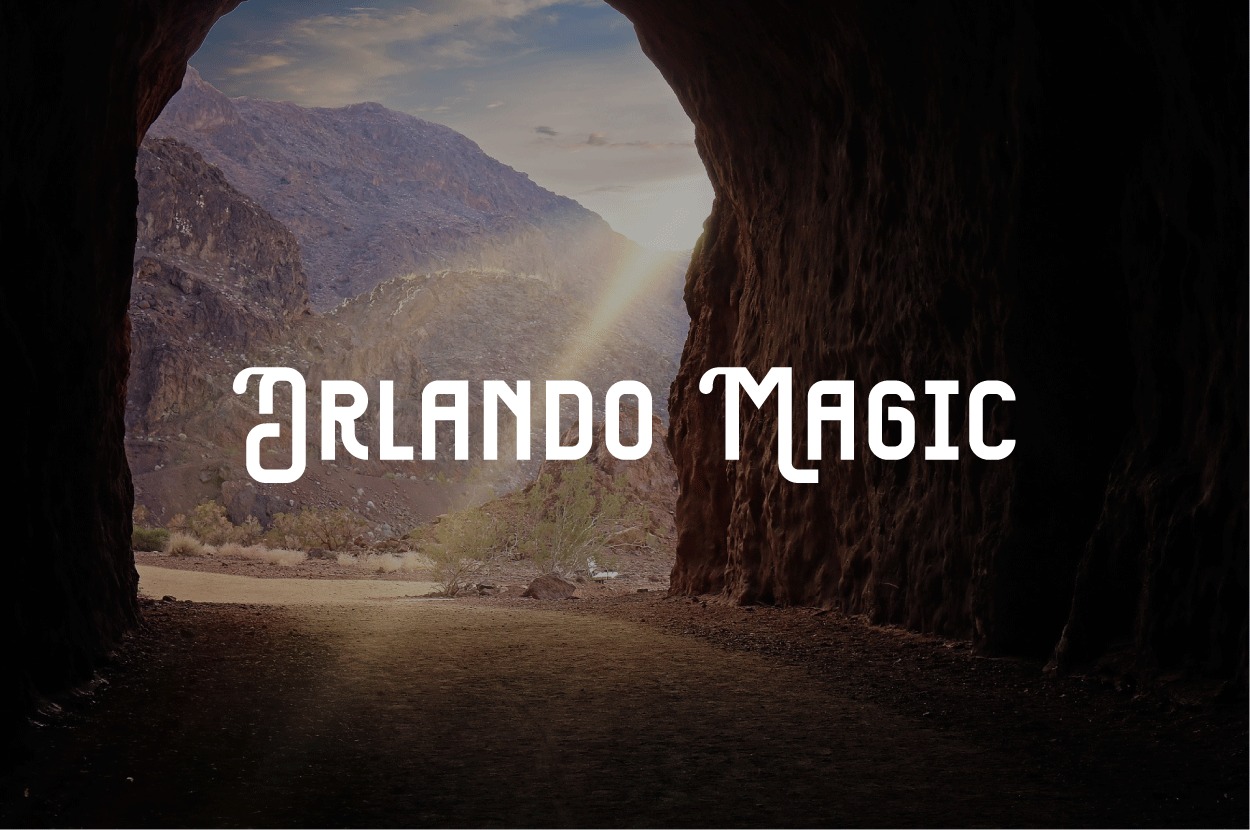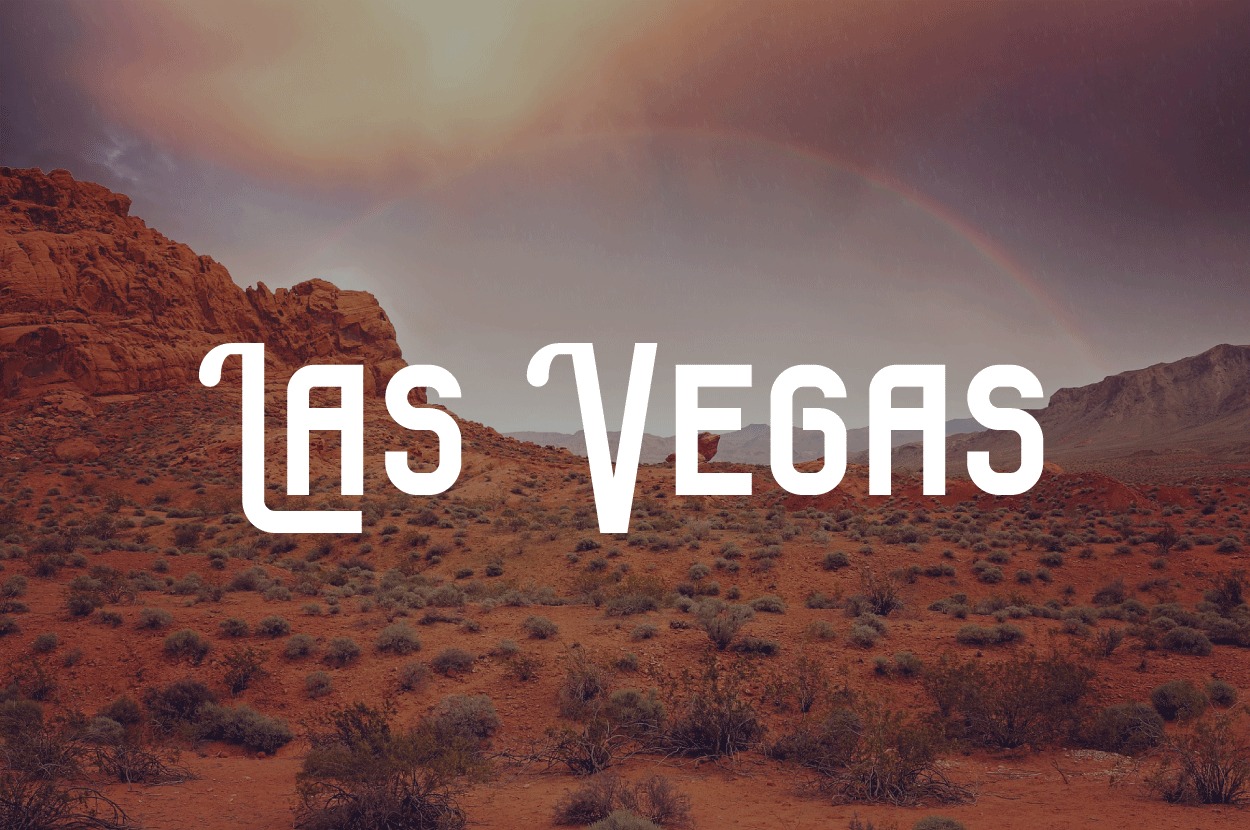
Las Vegas Sans Serif Font
This is a vintage sans serif typeface created by Letter art studio with high contrast, making it a versatile and elegant typeface. No matter the topic, this font will be an incredible asset to your fonts’ library, as it has the potential to elevate any creation.